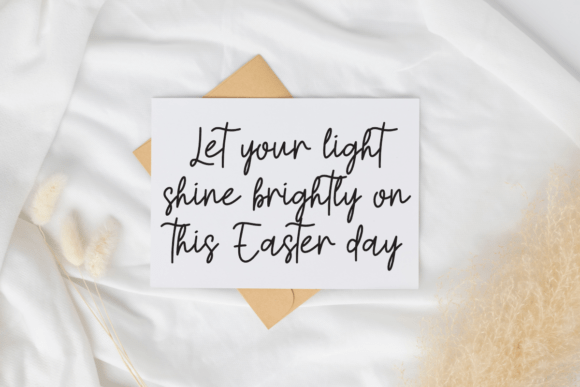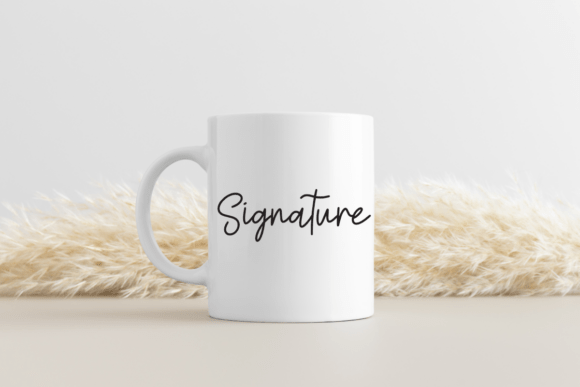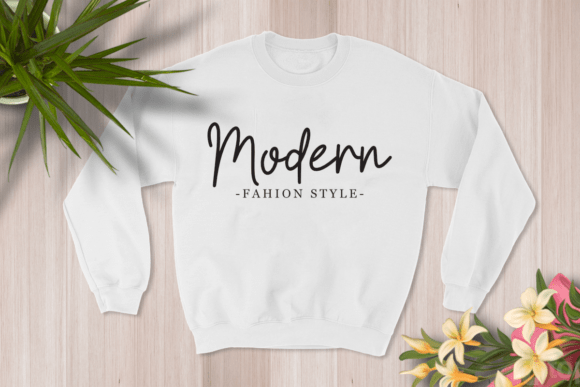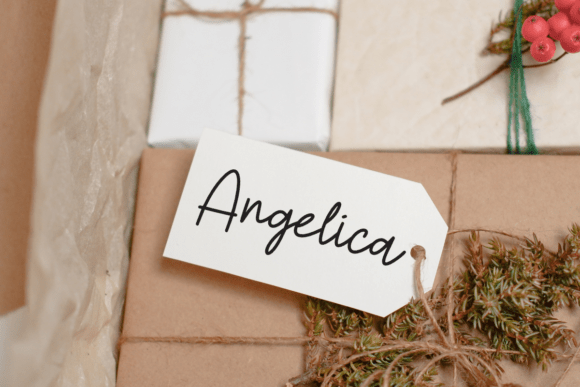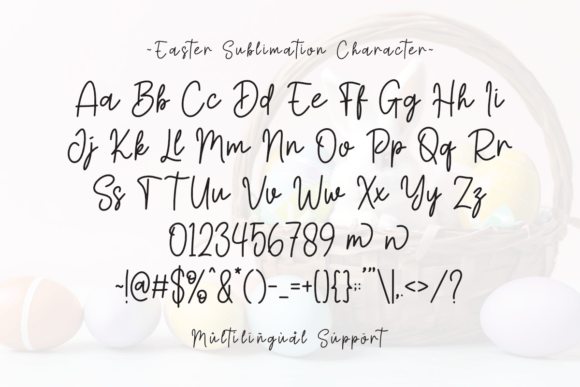
Easter Sublimation Font: Elevate Your Designs with Elegance and Warmth
Are you looking for a font that can add a touch of sophistication and charm to your designs? Look no further than the Easter Sublimation Font. This modern handwritten script font is perfect for creating beautiful and professional-looking designs for various projects, from wedding invitations to nursery decor, greeting cards, branding, and more.
What Makes Easter Sublimation Font Special?
The Easter Sublimation Font is designed with clarity and charm in mind, making it an excellent choice for both print and digital projects. Its smooth lines and flowing curves give it a elegant and warm feel that is sure to capture the attention of your audience. Whether you’re a designer, crafter, or DIY enthusiast, this font is perfect for adding a personal touch to your creations.
The Easter Sublimation Font is a versatile font that can be used for a wide range of design projects, including:
- Wedding Invitations: Create beautiful and elegant wedding invitations that set the tone for your special day.
- Nursery Decor: Add a touch of sweetness to nursery decor, including wall art, greeting cards, and more.
- Greeting Cards: Create personalized and professional-looking greeting cards for any occasion.
- Branding: Use the Easter Sublimation Font to create a unique and recognizable brand identity.
- Wall Art: Create stunning wall art, including quotes, poems, and more.
- Tumbler: Add a personal touch to your tumblers and make them stand out.
- Sticker: Create custom stickers for your products, gifts, or decorations.
- Cricut: Use the Easter Sublimation Font with your Cricut machine to create custom vinyl designs, iron-on designs, and more.
Why Choose Easter Sublimation Font?
There are many reasons why you should choose the Easter Sublimation Font for your design projects. Here are a few:
- Elegant and Warm: The Easter Sublimation Font has a smooth and flowing design that adds a touch of elegance and warmth to any project.
- Versatile: This font can be used for a wide range of design projects, from print to digital.
- Easy to Read: The Easter Sublimation Font is designed with clarity in mind, making it easy to read and understand.
- Professional-Looking: This font is perfect for creating professional-looking designs that are sure to impress.